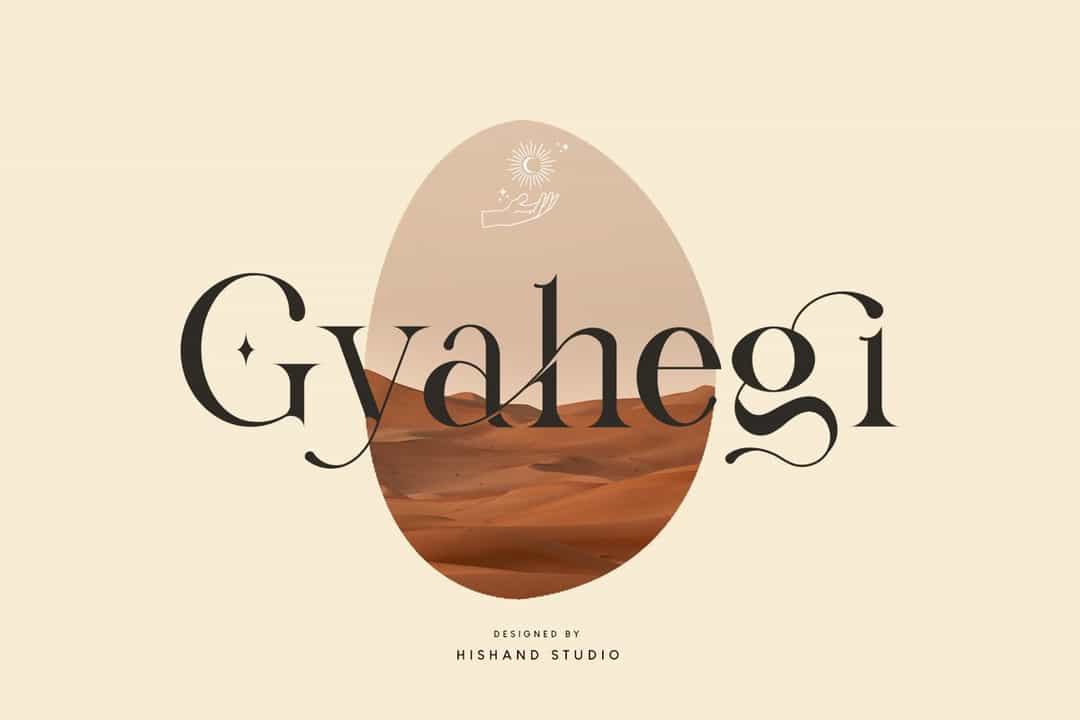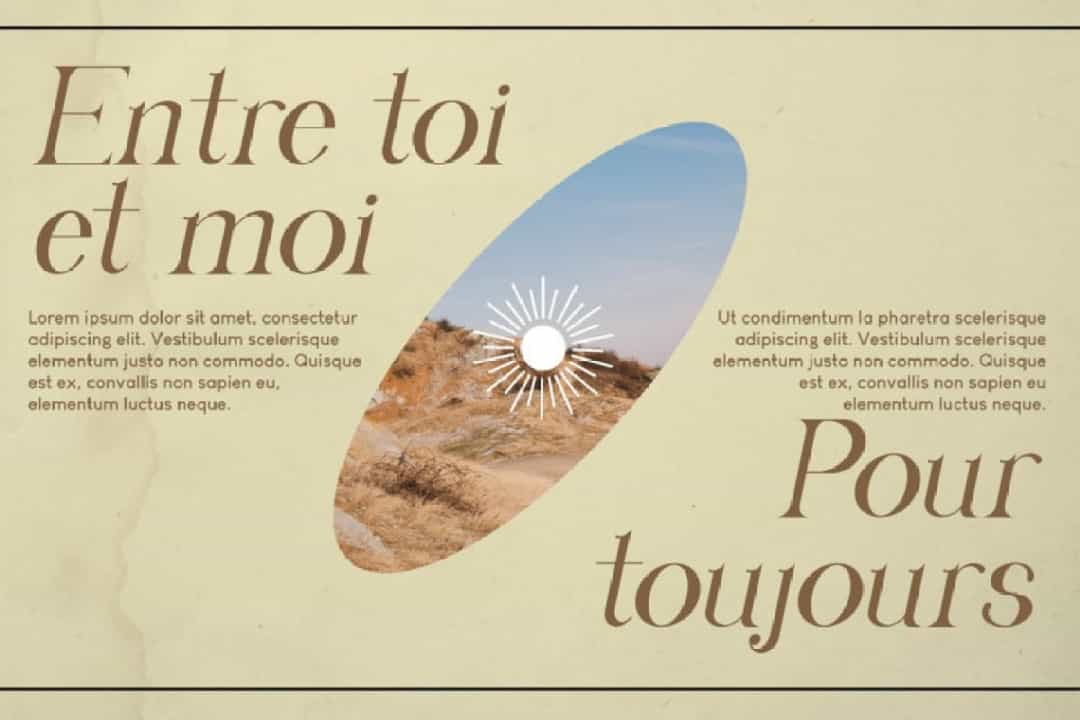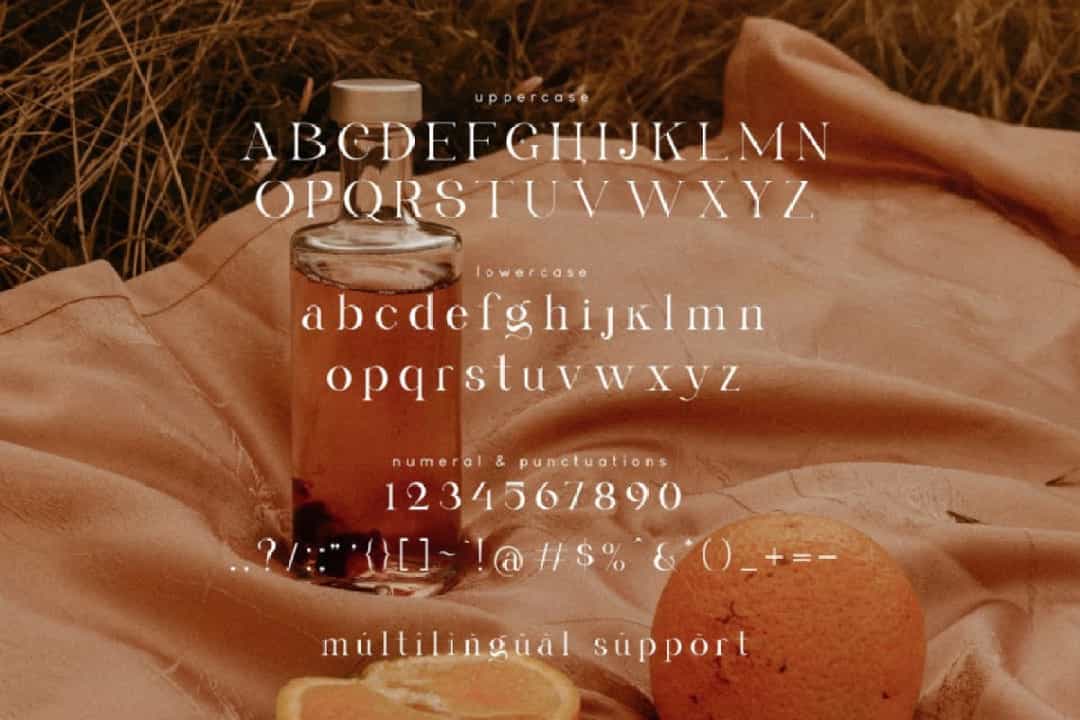
Gyahegi Font is a contemporary Serif font with beautiful, elegant letterforms. With stunning Ligatures, this font makes a striking addition to logos, branding materials, packaging for products as well as social media posts, magazine headers and clothing brand labels – among many other applications.